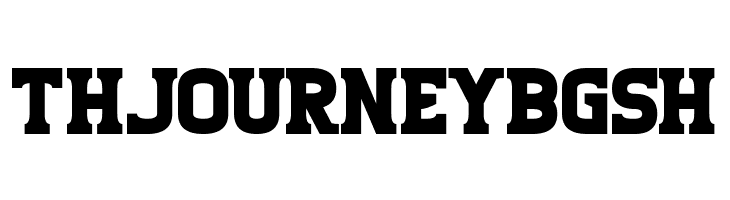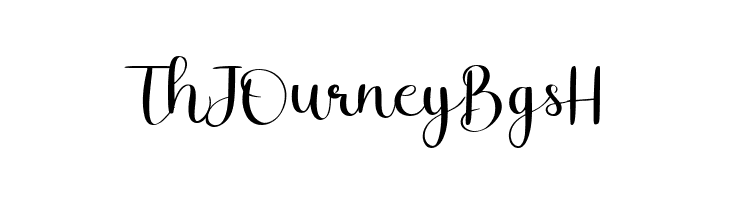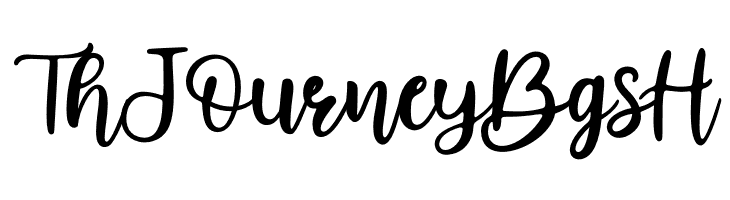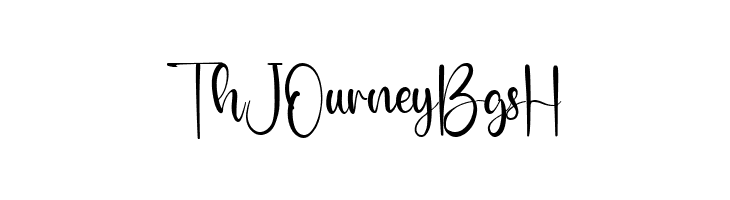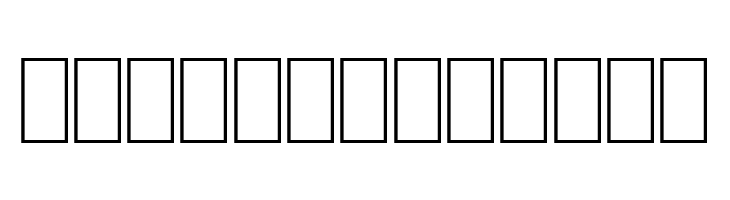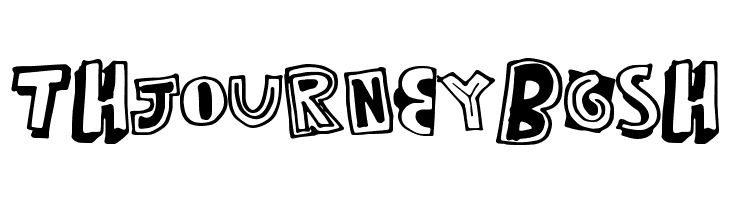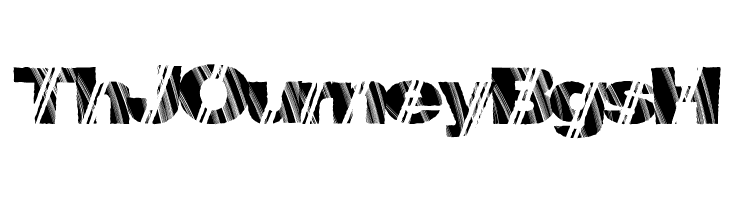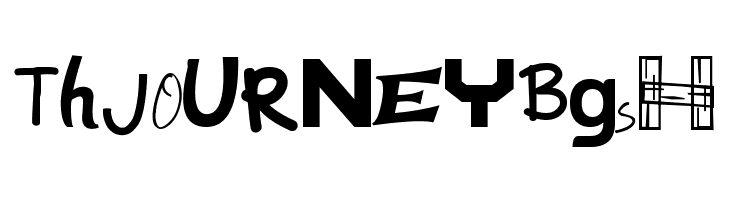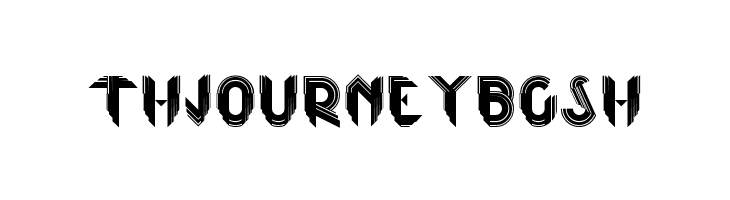
A bold, vintage-style serif font with strong, squared serifs.
An elegant, flowing script font with dynamic curves and decorative flair.
A bold, dynamic font with diagonal line patterns for a modern, energetic look.
A playful and lively script font with flowing cursive letterforms.
A playful, handwritten-style font with elegant, flowing lines.
A playful, eclectic font with bold, varied characters and a whimsical style.
A playful dingbat font with quirky, hand-drawn illustrations.
A bold, geometric font with Art Deco influences and strong visual impact.